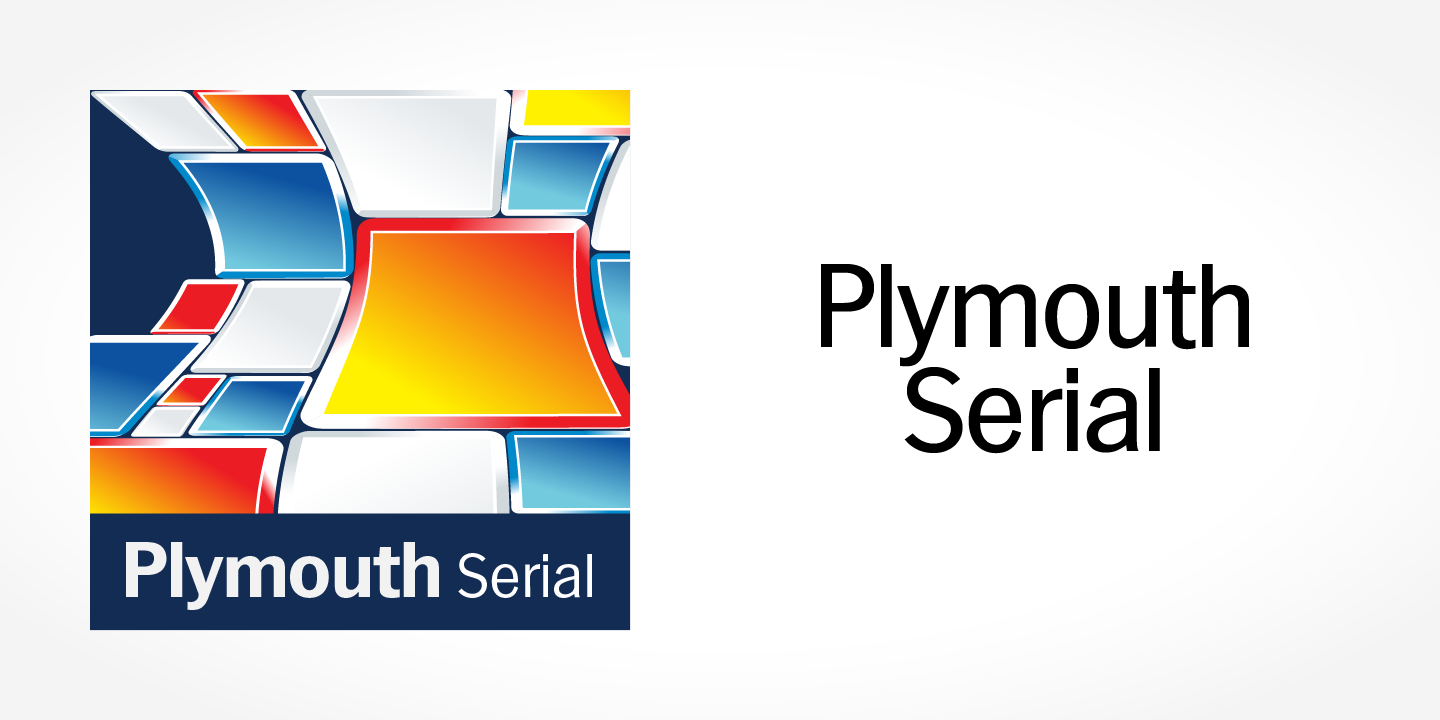
Plymouth Serial Font is perfect for colonial heritage museum branding, American founding history educational materials, Mayflower voyage commemorative publications, pilgrim settlement documentation, early American craft workshops, traditional New England tourism promotions, historical reenactment event graphics, colonial architecture firm presentations, Revolutionary War heritage sites, and distinguished American origins marketing campaigns.
What makes Plymouth Serial Font so exciting is its extraordinary ability to capture the steadfast determination and foundational importance of America's earliest colonial settlements through systematically crafted letterforms that seem inscribed by the same careful hands that recorded the daily struggles and extraordinary achievements of pilgrims who crossed treacherous oceans to establish the communities that would become the foundation of American civilization. This font embodies the essence of colonial perseverance and founding principles, featuring methodically structured characters that appear designed to commemorate the systematic record-keeping and careful documentation that enabled early American settlements to survive and eventually flourish in unforgiving wilderness conditions. The foundationally crafted letter shapes create an atmosphere of historical gravity and colonial authenticity, making every word feel like it carries the weight of American origins and the promise of honoring the courage and wisdom of those who planted the first seeds of democratic ideals in New World soil.
The Plymouth Serial Font family includes Light, Regular, Medium, Bold, and Colonial variations, along with period-appropriate symbols and early American decorative elements. Each style maintains the font's distinctive historical character while offering versatility for different heritage applications, from gentle historical narrative text to commanding commemorative headlines that celebrate the enduring significance of America's colonial foundations and founding principles.
This foundational typeface brings authentic colonial American aesthetics to contemporary design projects. The Plymouth Serial Font Free Download offers designers an invaluable resource for creating memorable brand identities that communicate historical authenticity, founding principles, and colonial heritage. Whether you're developing historical institution branding, designing colonial heritage materials, or creating early American education communications, this font delivers unmatched colonial credibility and foundational appeal.
The expertly crafted letterforms in Plymouth Serial Font feature systematic proportions and colonial clarity that mirror the careful documentation practices and methodical record-keeping that enabled early American settlements to maintain their communities and preserve their experiences for future generations. Each character has been designed to maintain perfect readability while expressing the colonial determination and founding wisdom that define authentic early American heritage. The font's distinctive personality makes it ideal for applications requiring genuine colonial authority and founding era credibility.
Historical preservation and educational professionals appreciate how Plymouth Serial Font effortlessly communicates colonial authenticity, founding principles, and American heritage while serving visitors and students seeking genuine understanding of the experiences and achievements that shaped America's earliest communities and democratic foundations. The comprehensive character set includes colonial symbols, early American decorations, founding era elements, and extensive language support, ensuring broad compatibility while preserving its distinctive Plymouth identity. This makes it an invaluable resource for historical museums, heritage sites, educational institutions, and any organization seeking typography that embodies the fundamental American values of perseverance, religious freedom, and the kind of founding courage that enabled ordinary people to become extraordinary pioneers who understood that building a new civilization required not only physical survival but also the preservation of principles and values that would guide future generations in creating a society based on individual liberty, community cooperation, and the systematic development of institutions that could sustain democratic governance while respecting both human dignity and the natural world that provided the resources necessary for colonial communities to establish the foundations of what would eventually become the United States of America through the patient application of colonial wisdom and the unwavering commitment to principles that continue to inspire democratic movements throughout the world.